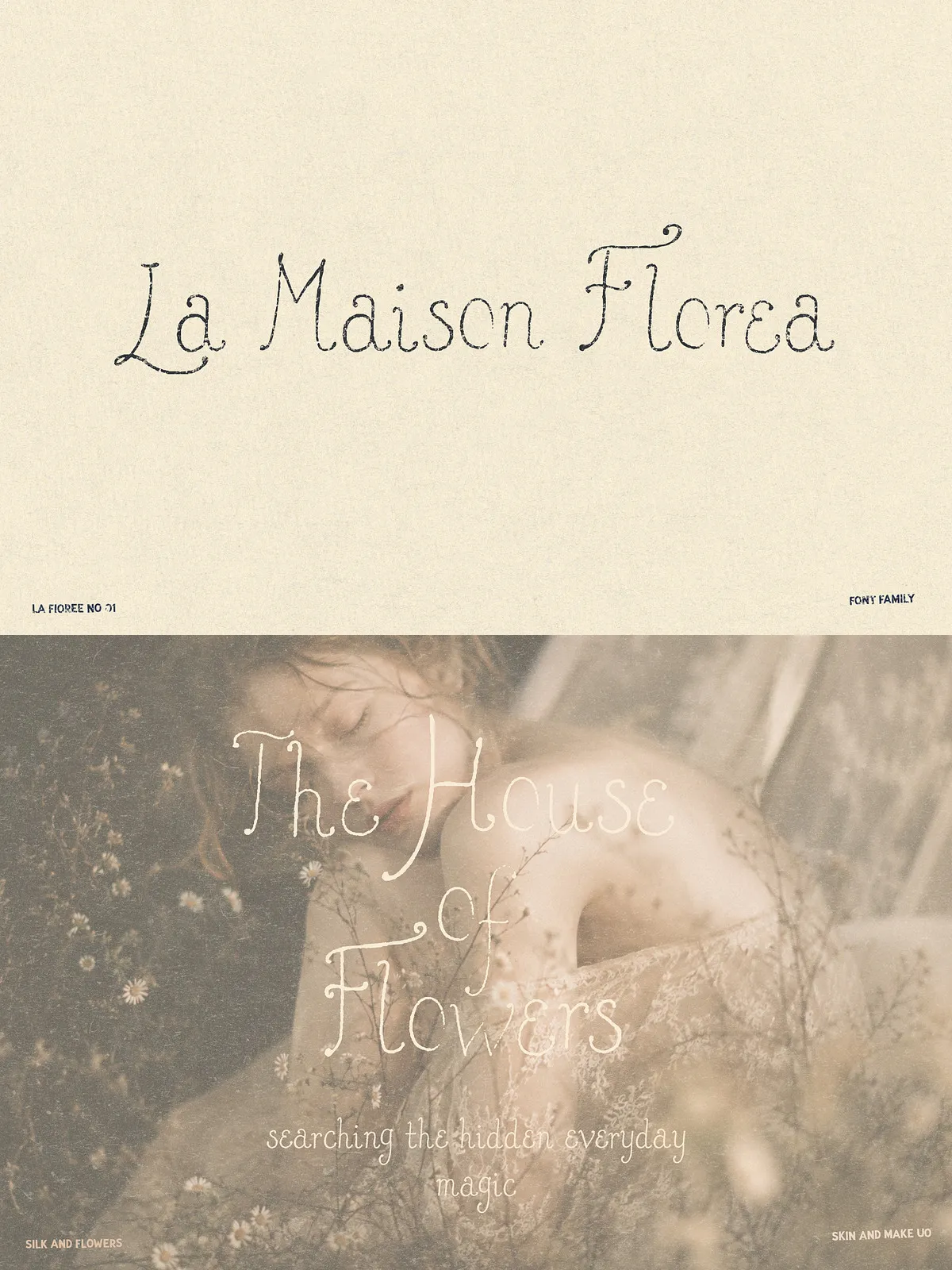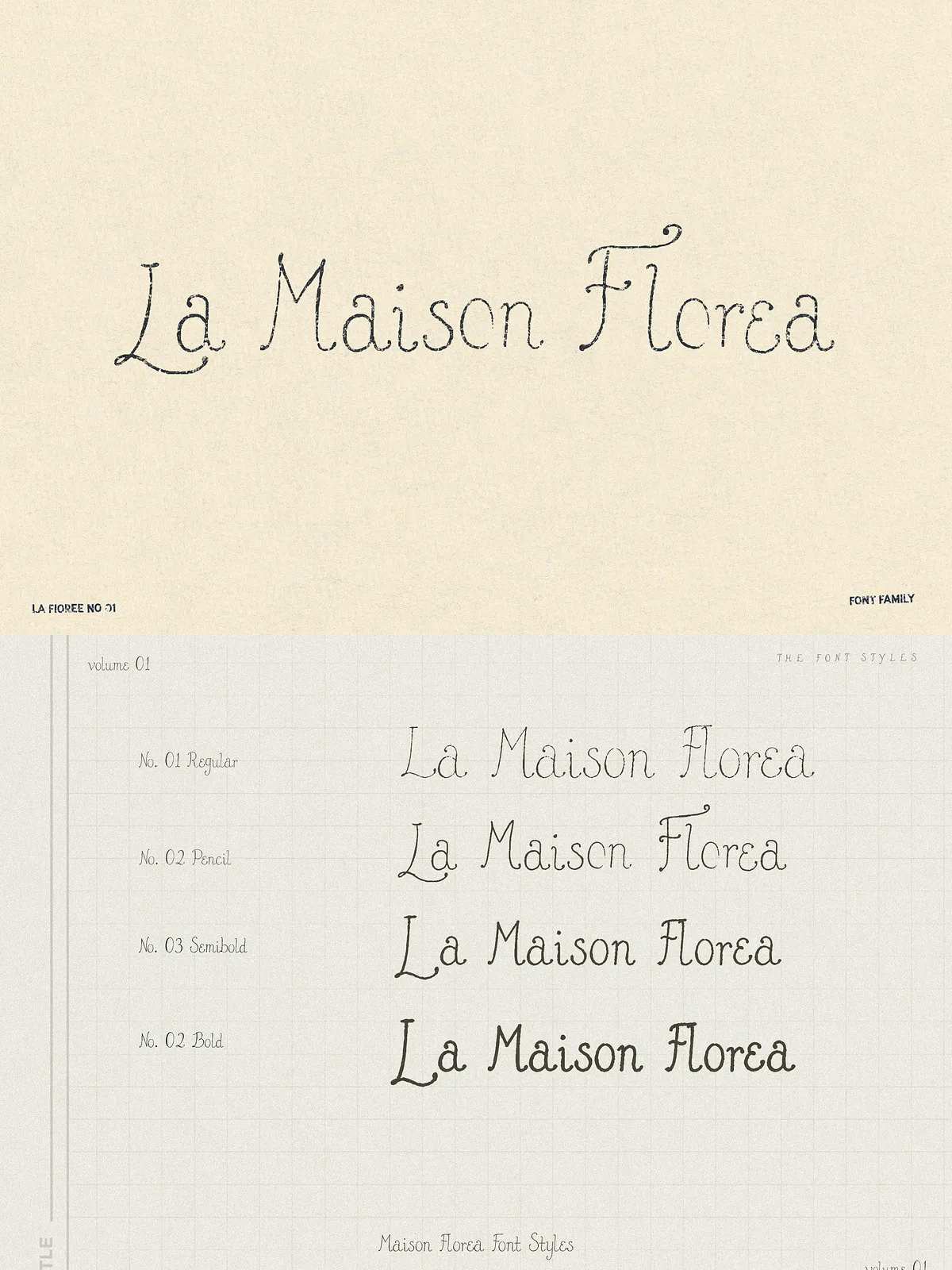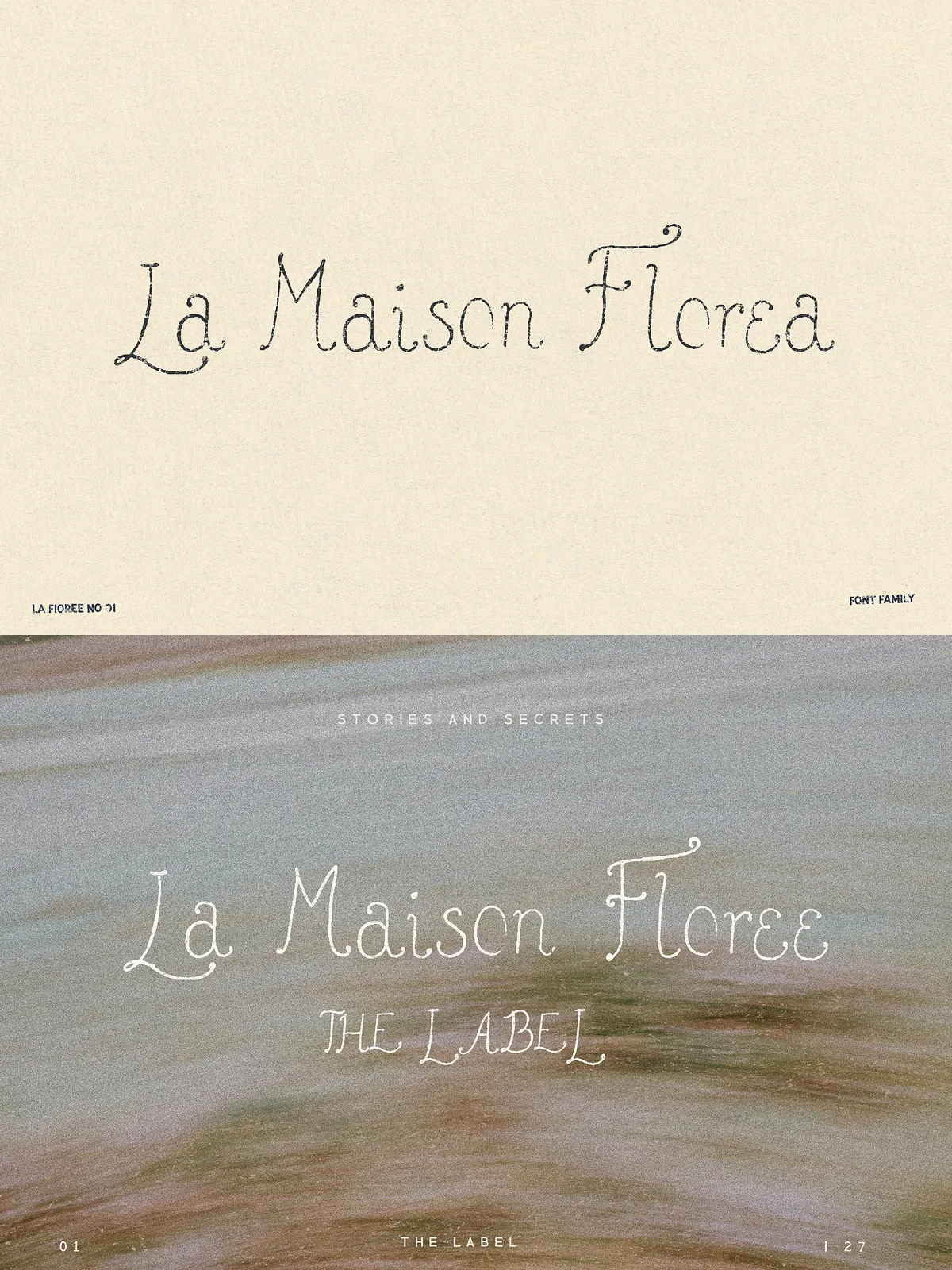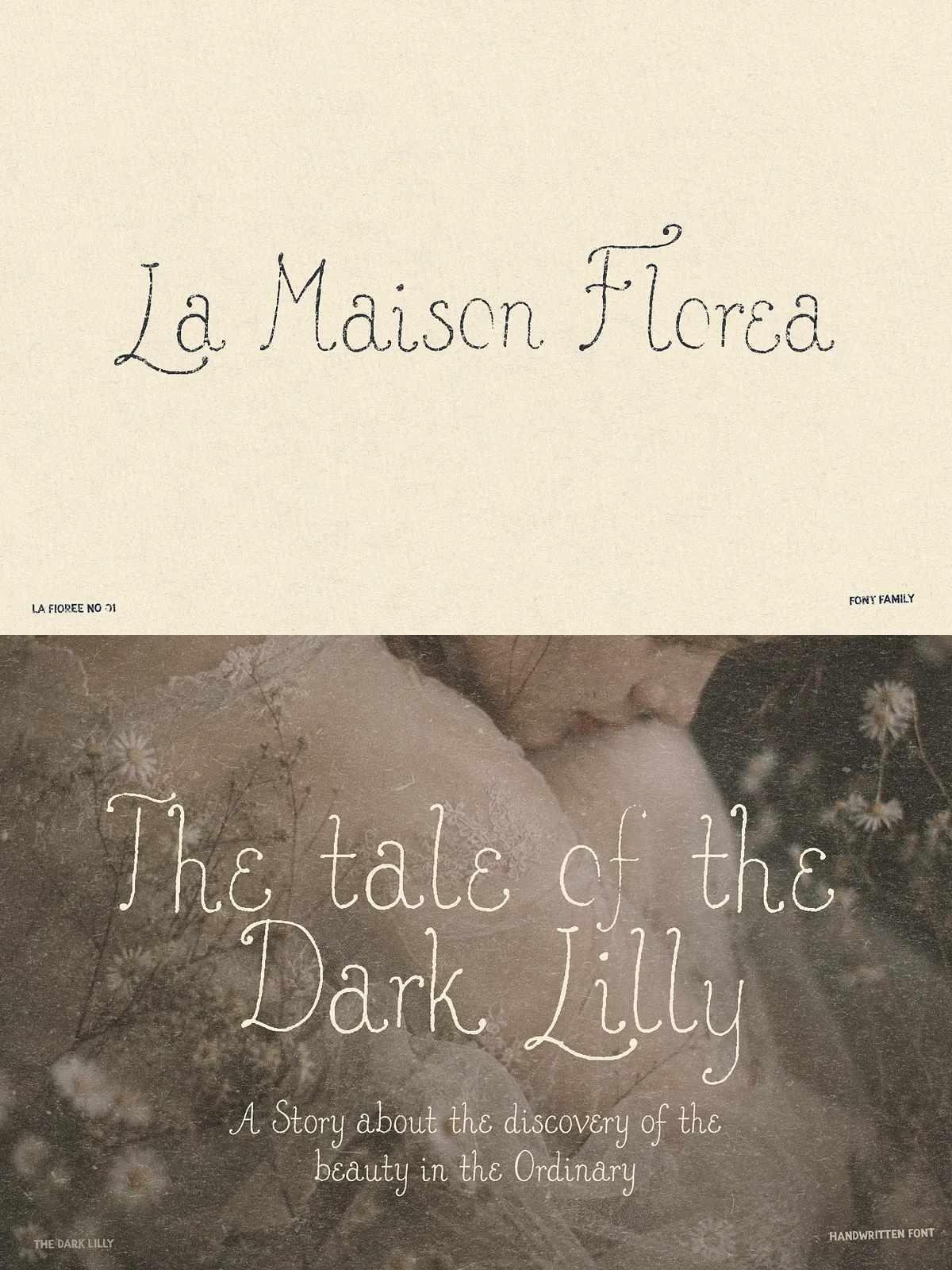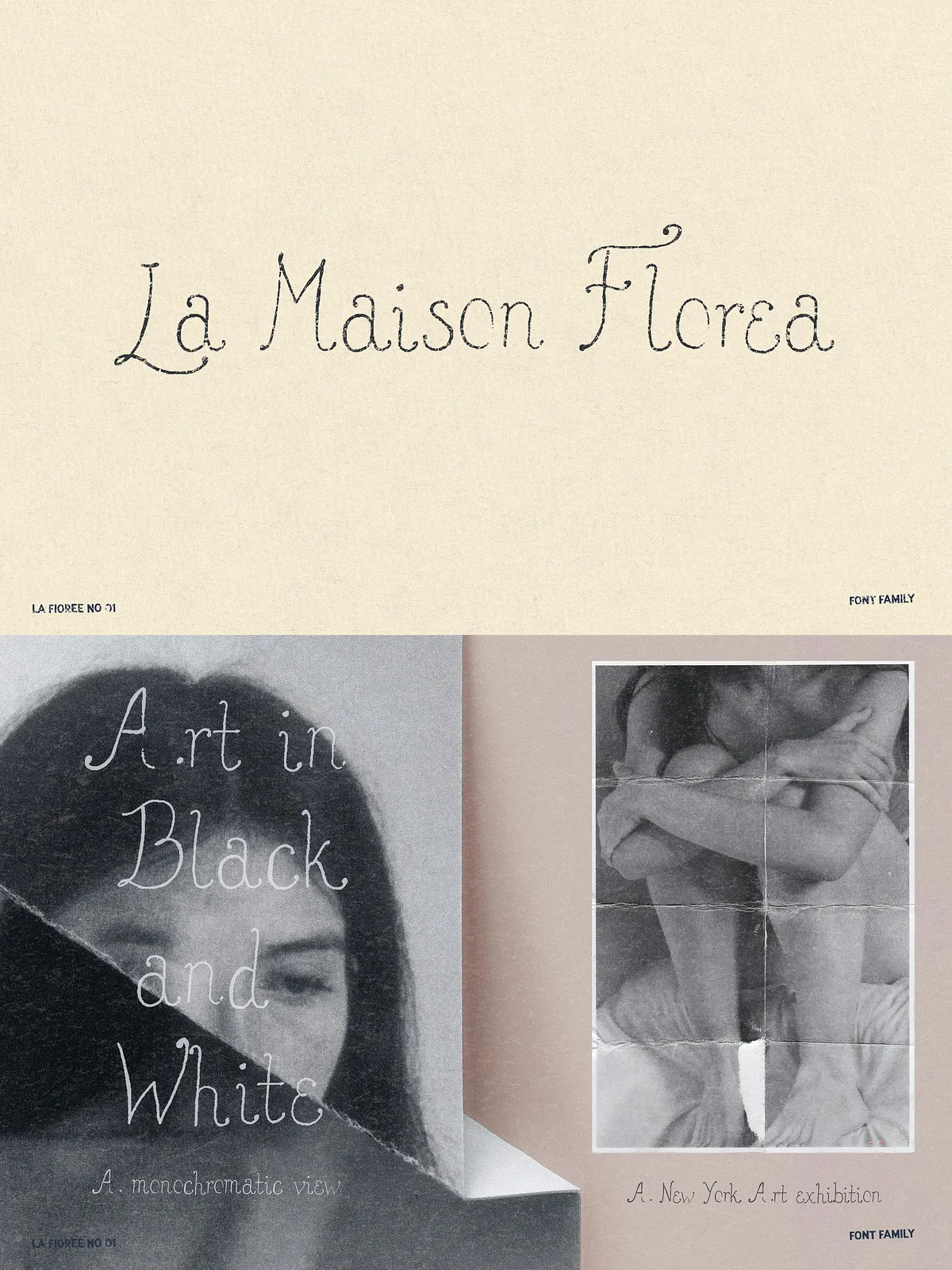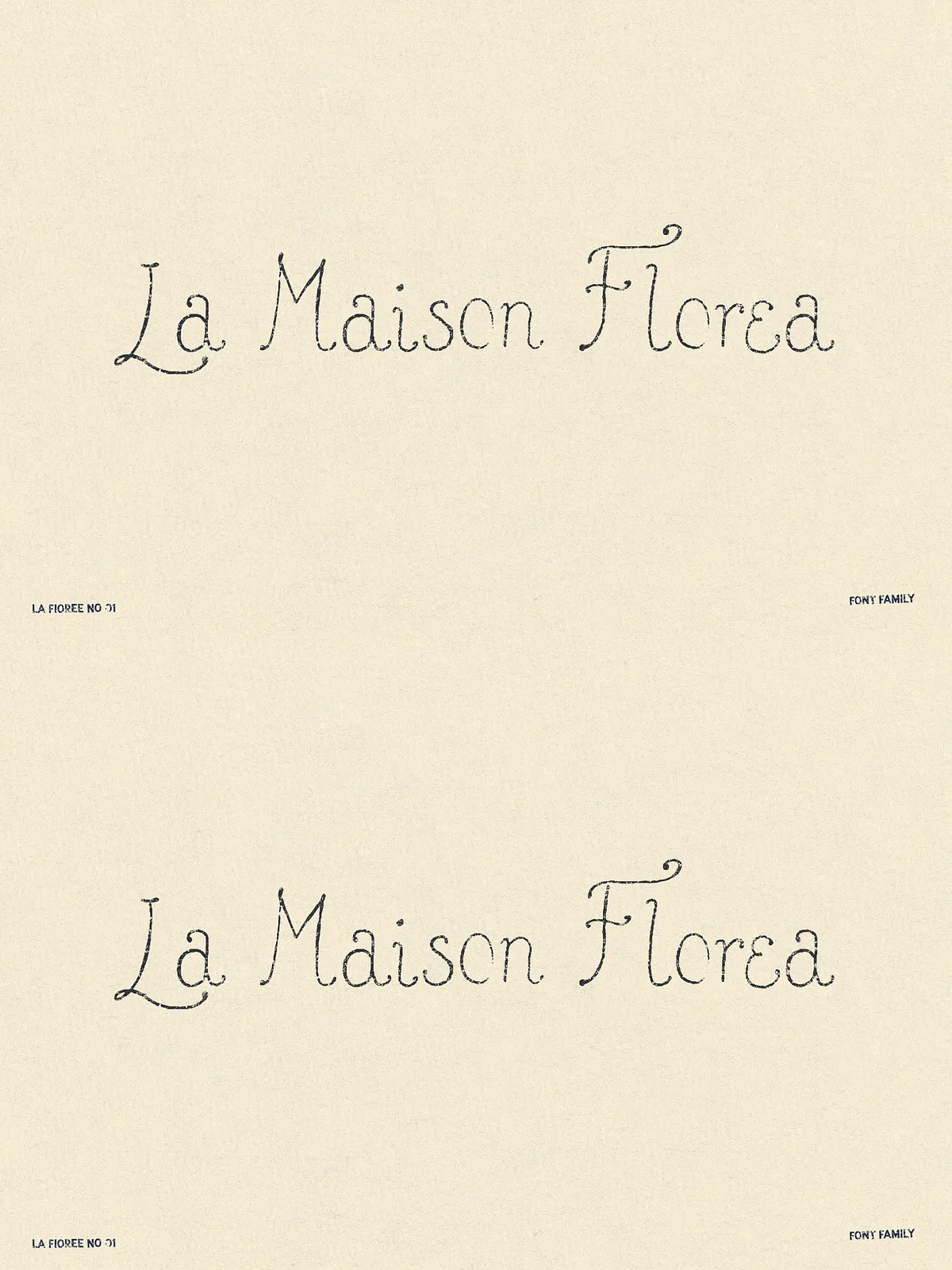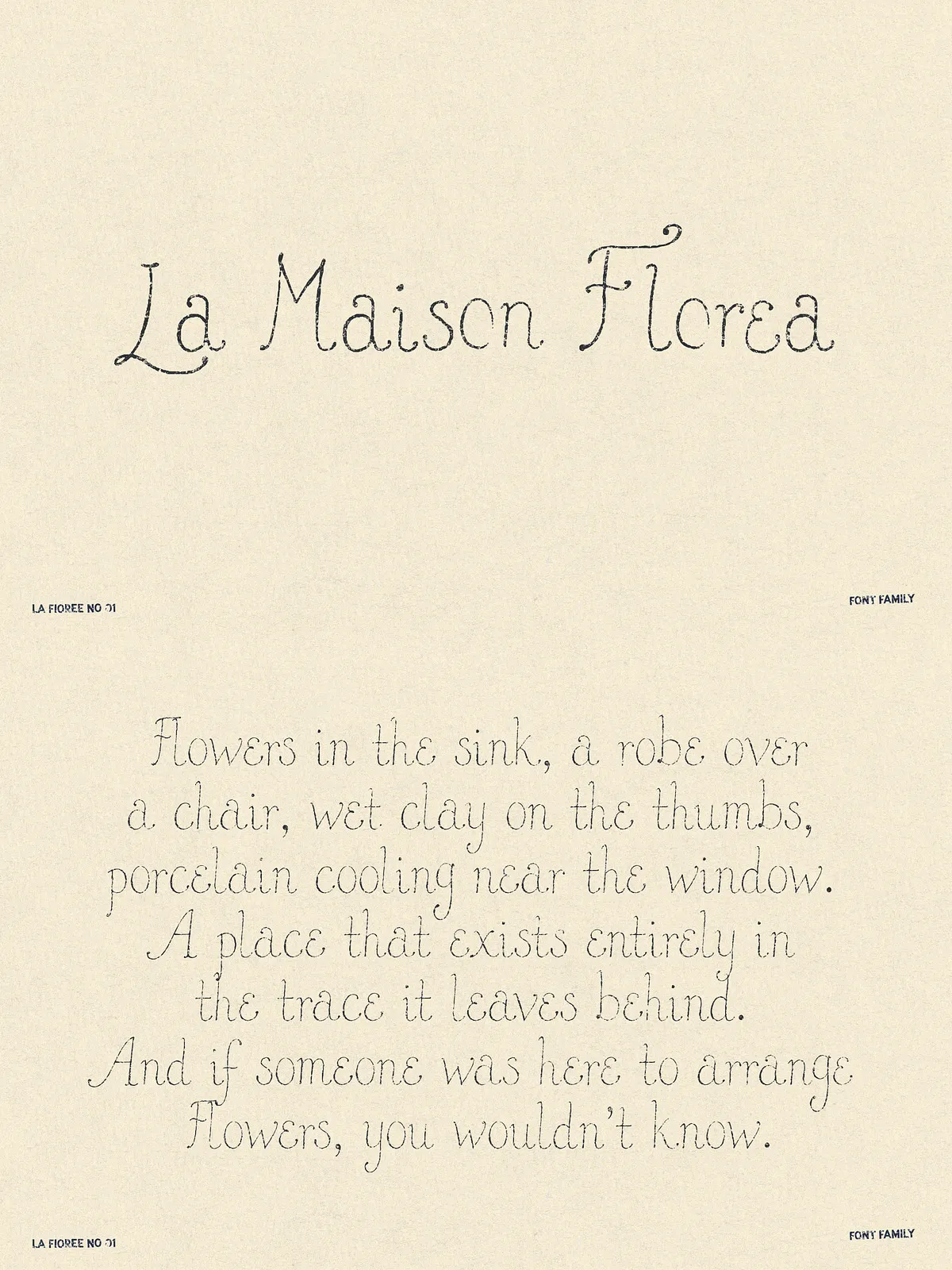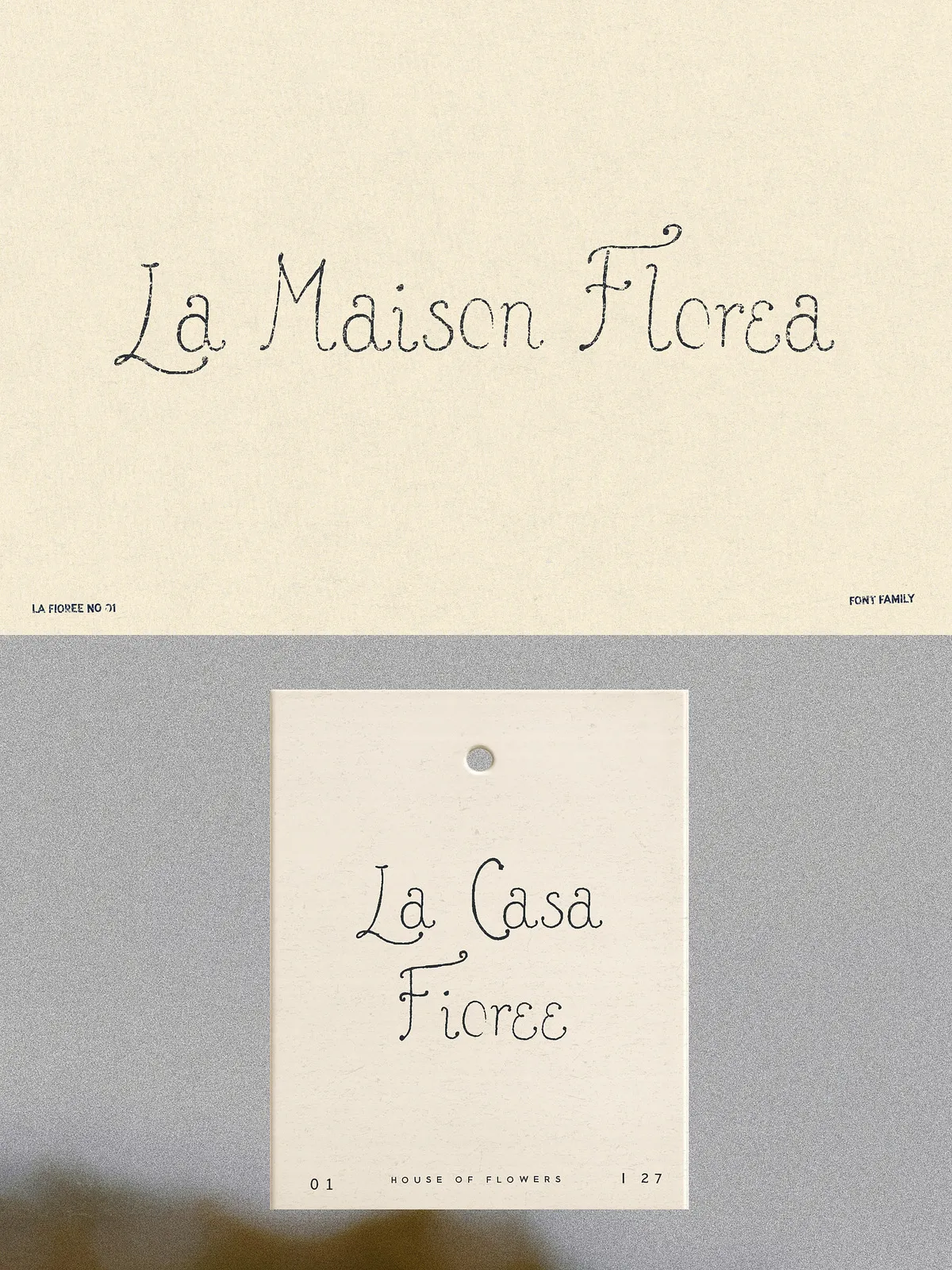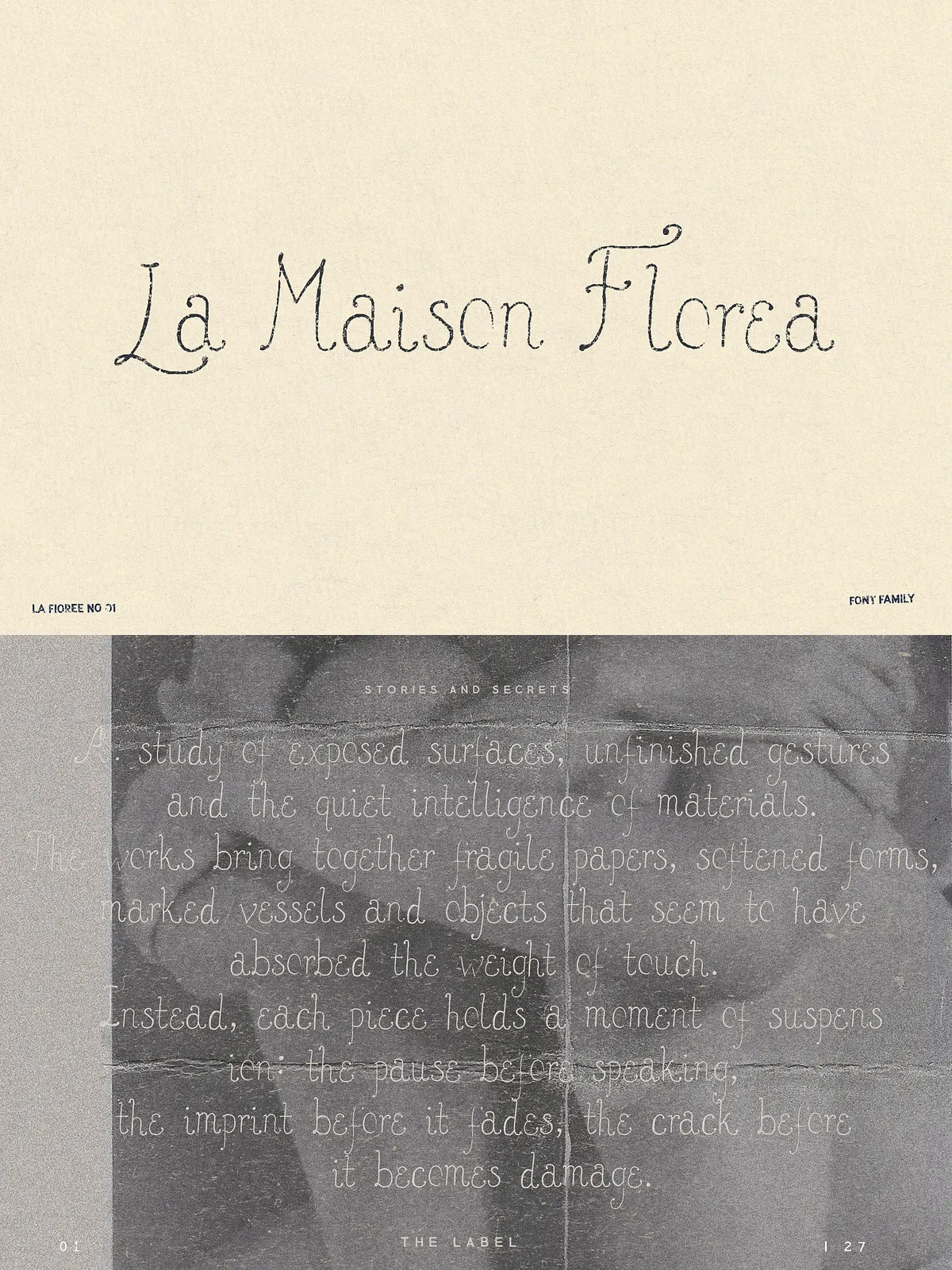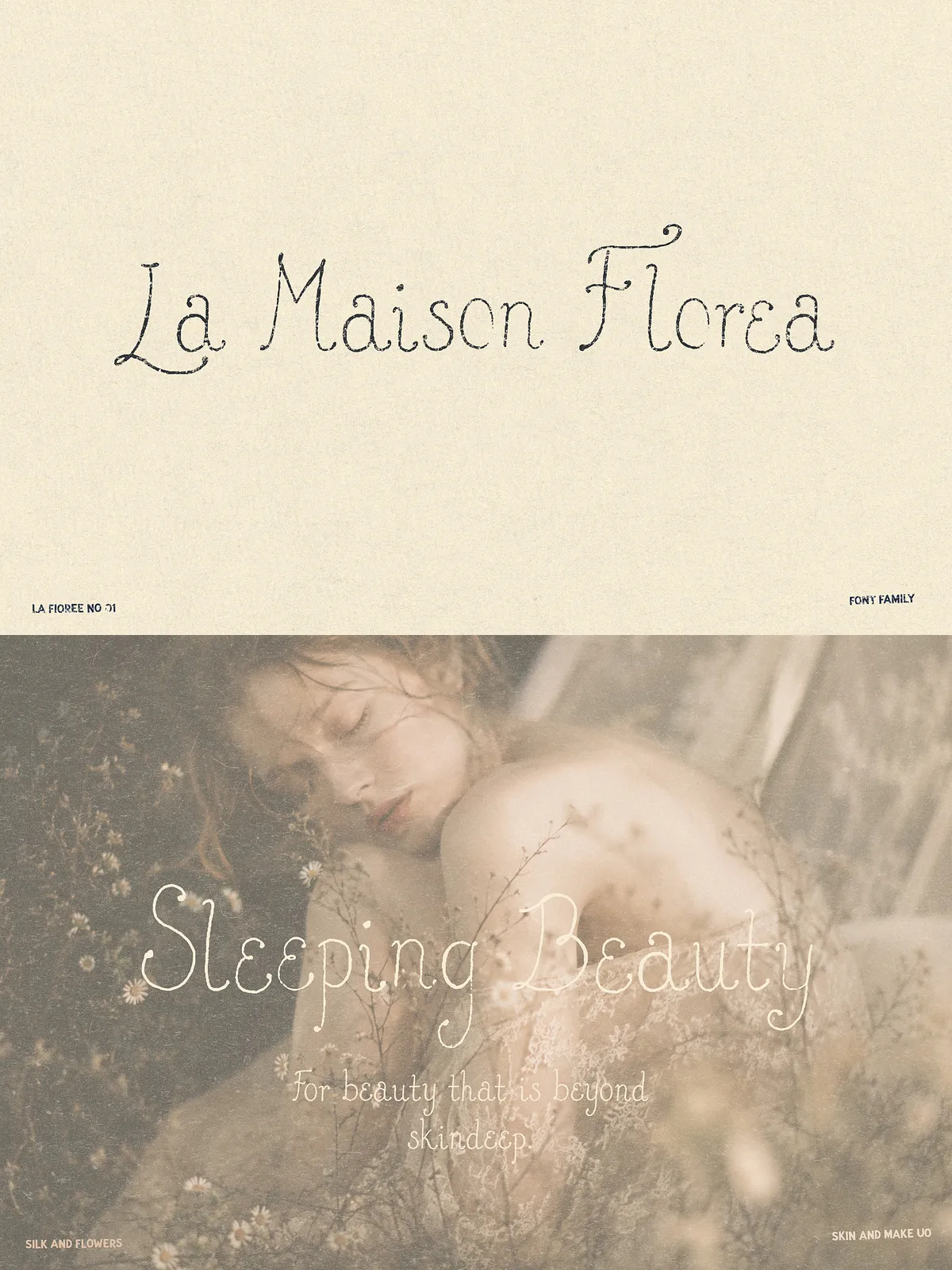
Handwritten Whimsical Script Font
Maison Florea delivers an unmistakable handmade voice. Every letter, curve, and imperfect stroke expresses careful human craft. Designed with a softly fading ink-on-paper effect and subtle surface texture, Maison Florea gives designers expressive control over tone and atmosphere. Use it to add warmth, poise, and a quietly artistic presence to brand identities, packaging, editorial spreads, invitations, and boutique visuals.
Design and Finishes
Handmade Letterforms
Maison Florea emphasizes human nuance: delicate terminals, slight inconsistencies, and organic rhythm. These details keep the font feeling alive and approachable while maintaining strong display presence for headlines and logos.
Two Complementary Finishes
The family includes a cleaner, polished handwritten version and a softer, pencil-inspired texture. The polished finish reads crisp and refined for upscale branding, while the pencil finish brings graphite warmth and charcoal-like depth for editorial or artisanal packaging work.
Four Flexible Styles
With four styles included, Maison Florea adapts to a range of visual needs. Designers can mix styles to create hierarchy, contrast, and layered textures across both digital and print projects.
• Meticulously drawn letterforms with natural, human imperfections.
• Soft ink-on-paper texture and a pencil-finish alternative for tactile appeal.
• Four styles for flexible typographic hierarchy and contrast.
• Strong display performance for logos, headlines, and editorial accents.
• Readable at larger sizes while preserving handcrafted detail at closer inspection.
Ideal Use Cases
Apply Maison Florea wherever you need handmade character paired with sophisticated presentation. Common uses include:
• Brand identities and boutique logos that require a custom, human touch.
• Packaging for artisan goods, cosmetics, candles, and small-batch foods.
• Luxury invitations, greeting cards, and stationery with expressive signature details.
• Editorial covers, feature spreads, and pull quotes that benefit from tactile texture.
• Poetic social media graphics, moodboards, and personal branding assets.
Pairing & Design Tips
Balance with a Neutral Sans
Pair Maison Florea with a neutral sans-serif for body copy to preserve readability while highlighting the font’s expressive display qualities. Clean geometric or humanist sans choices create a modern counterpoint to Maison Florea’s handmade warmth.
Use Texture and Paper to Amplify Character
For print, select uncoated or textured stocks to accentuate the ink and pencil finishes. For digital layouts, apply subtle grain or paper overlays behind text blocks to enhance depth without sacrificing legibility.
Reserve for Display and Accent Uses
Lean on Maison Florea for headlines, logotypes, labels, and short-form copy. Its nuanced textures shine at larger sizes and in focused details; avoid dense paragraph settings to keep the design clean.